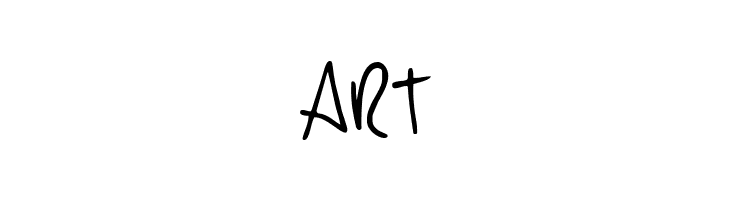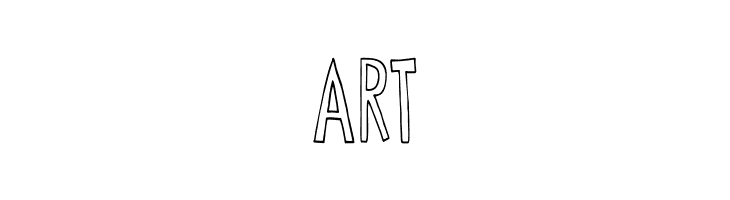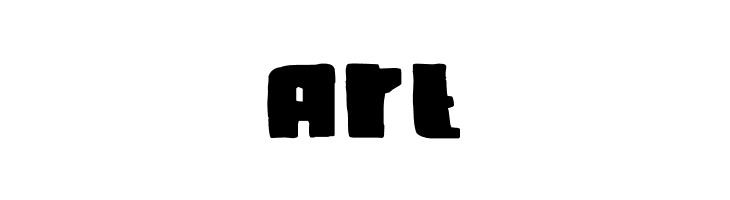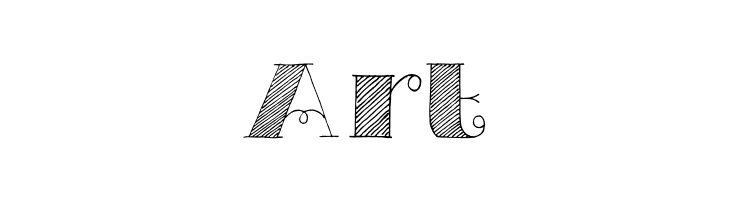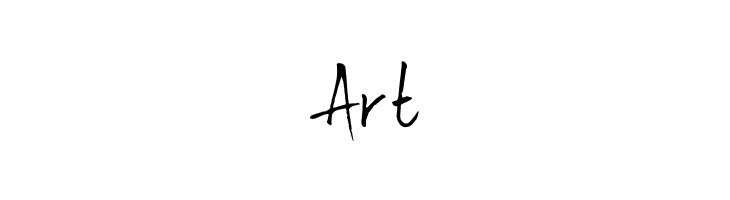
• DKAuRevoir
A lively, expressive handwritten font with dynamic strokes.
• DKBlackMark-Heavy
A bold, brush-style font with a rough, expressive texture.
• DKCannedWhale
A playful, hand-drawn font with tall, narrow letters and consistent stroke width.
• DKCarteBlanche
A whimsical, hand-drawn font with decorative swirls and textured hatching.
• DKCastanea
A whimsical, hand-drawn font with elongated, artistic characters.
• DKClairDeLune
A whimsical and artistic font with playful curls and elegant embellishments.
• DKCrayonista
A playful, crayon-like font with a hand-drawn, textured appearance.
• DKEarlyMorningCoffee-MediumRoas
A playful, casual handwritten font with a relaxed, flowing style.
• DKFatherFrost
A whimsical, decorative font with charming swirls and curls.
• DKFatKittyKat
A bold, playful font with a chunky, hand-drawn style.